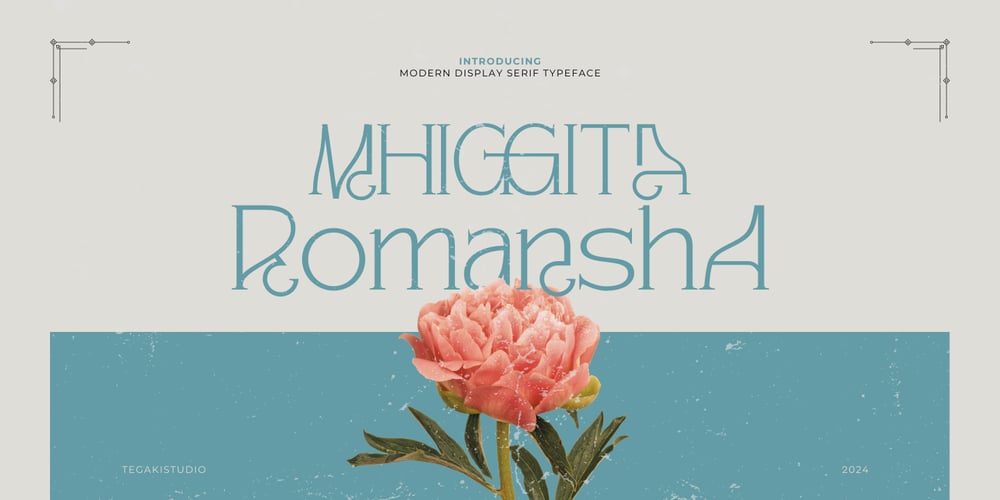
Mhiggita Romansha Font Family was designed by Rudi Suhairi and published by Tegaki. Mhiggita Romansha contains 2 styles and family package options. Hi all,Introducing Mhiggita Romansha, a Modern Display Serif Typeface designed to captivate and inspire. This font merges timeless sophistication with contemporary flair, featuring clean lines and graceful curves. Its high contrast between thick and thin strokes makes it ideal for headlines, logos, and branding, ensuring your message stands out with an air of distinction and style.Elegance Serif comes in two distinct styles: Regular and Slant. The Regular style offers a polished, professional look, while the Slant style adds a dynamic, contemporary edge. Together, these styles provide flexibility and creative freedom, making Elegance Serif a versatile choice for a wide range of design projects, from luxury fashion magazines to high-end product packaging. Elevate your design work with Elegance Serif and leave a lasting impression with every project.